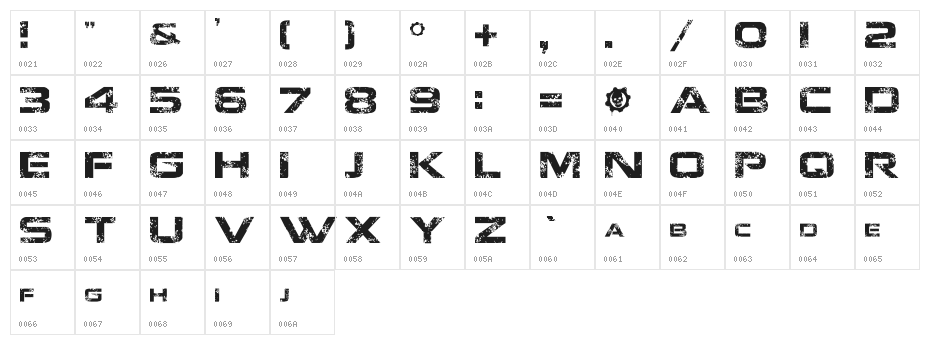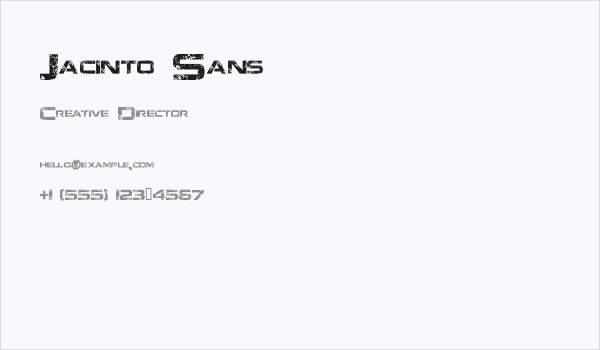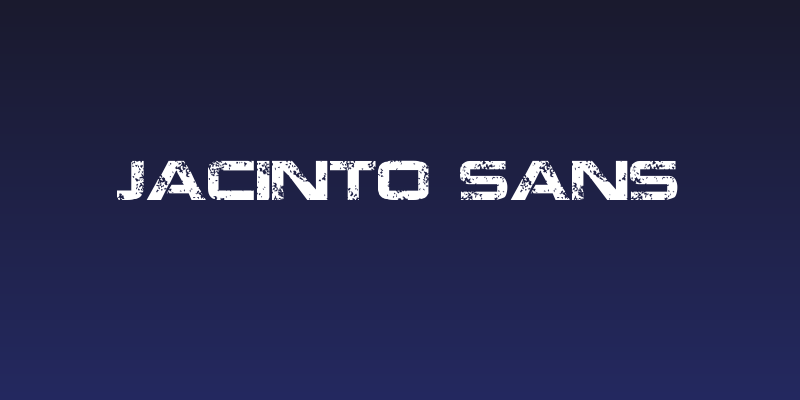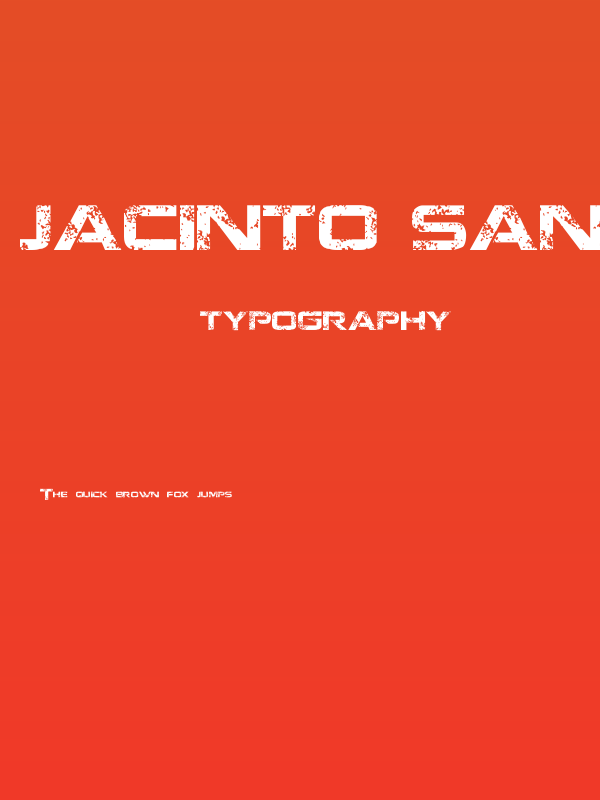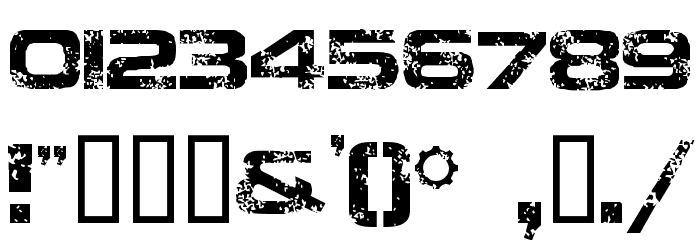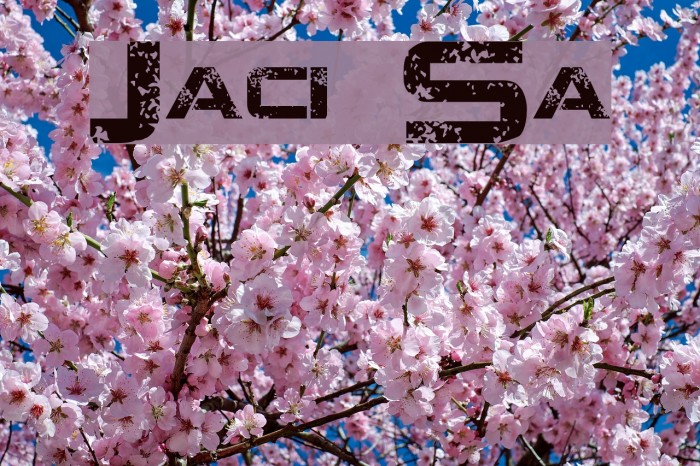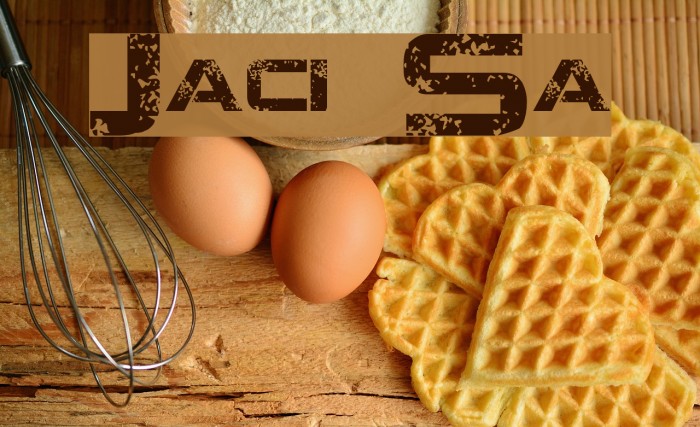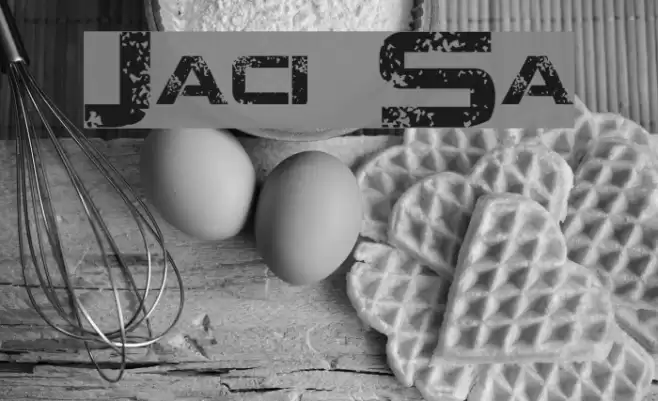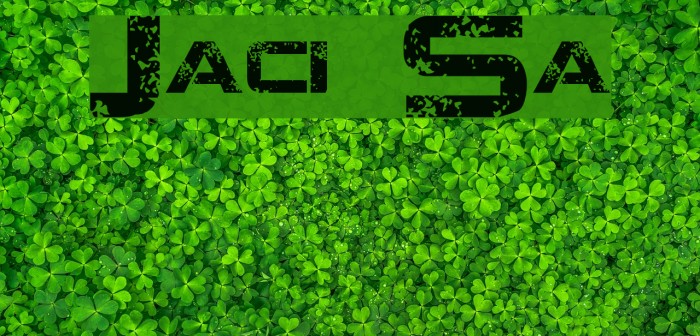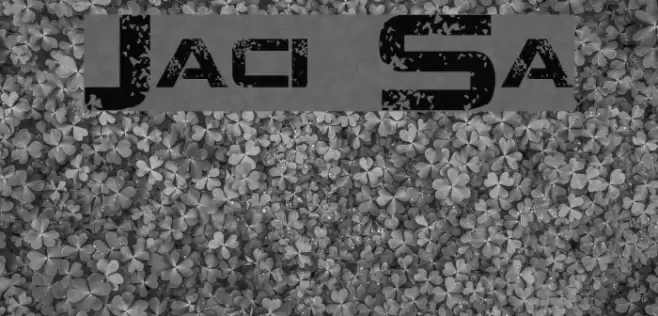
Jacinto Sans Font
Jacinto Sans Description
This font features a bold, distressed style with a textured appearance that gives it a rugged and worn look. The uppercase and lowercase letters are consistent in their boldness, with each character displaying a unique pattern of distress that adds to the overall aesthetic. The numerals and special characters follow the same design, ensuring a cohesive look across all glyphs. This font is ideal for projects that require a strong, impactful visual presence, such as posters, album covers, or branding for edgy or alternative products. Its distinct style makes it stand out, while the uniformity in character design maintains readability.
| Proposed Projects | Ideal for posters, album covers, edgy branding, and alternative product designs. |